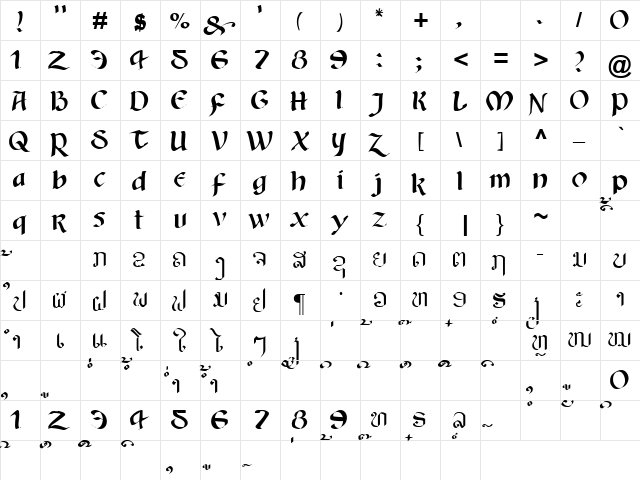
Alice3 Lao Medium
Design Context for Alice3 Lao Typeface
Alice3 Lao takes a measured approach to typography — its balanced proportions and neutral character make it a reliable workhorse for both digital and print work.